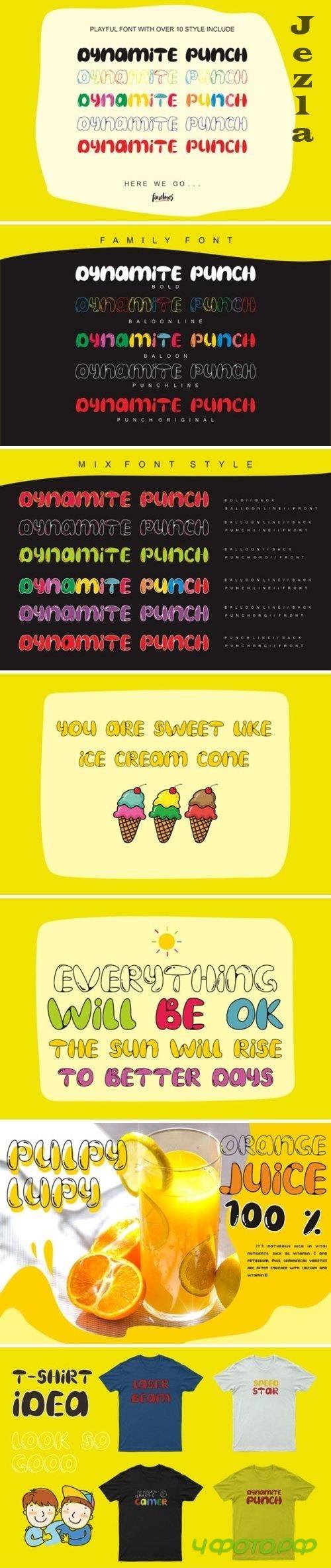
Dynamite Punch Font
Dynamite punch embodies fun, quirkiness and authenticity. This enchanting display font will turn any creative idea into a true standout.